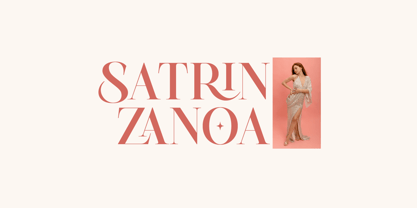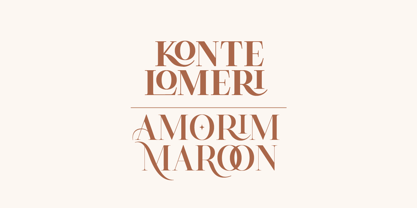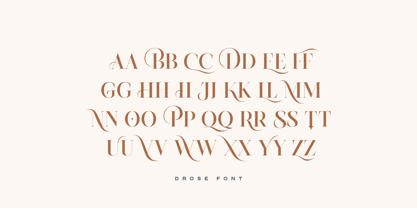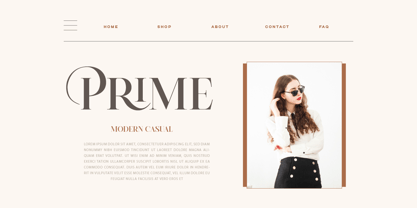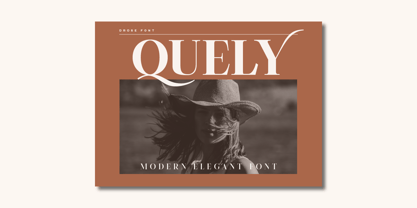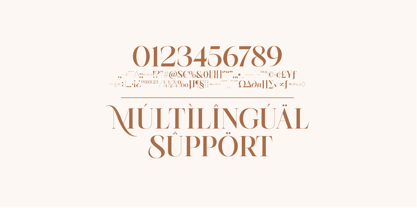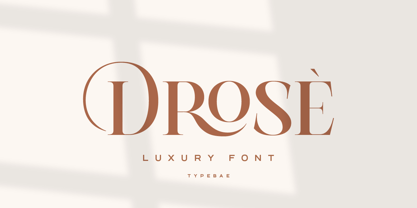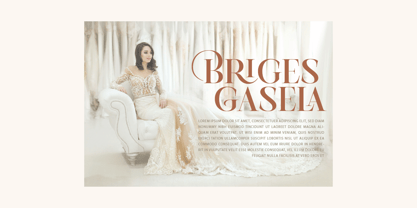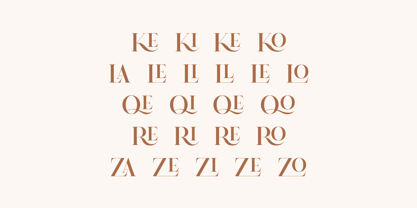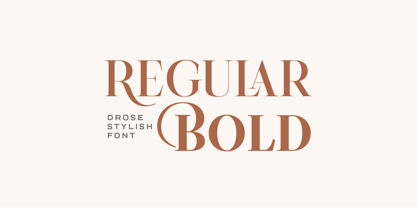
Drose
Die Schriftfamilie Drose wurde von Iqbal Pauji entworfen und von Typebae veröffentlicht. Drose enthält 2 Stile und Familienpaketoptionen. Mehr über diese Familie
Drose is a modern luxury serif typeface with stylish curves and refined high contrast details. Designed to create an elegant and sophisticated visual presence, it is perfect for logos, fashion branding, editorial layouts, invitations, magazines, and premium packaging. Classy, clean, and expressive, Drose brings timeless beauty to contemporary design.
- Stylish Allcaps with Ligatures
- Numbers & Punctuation
- Multilingual Support